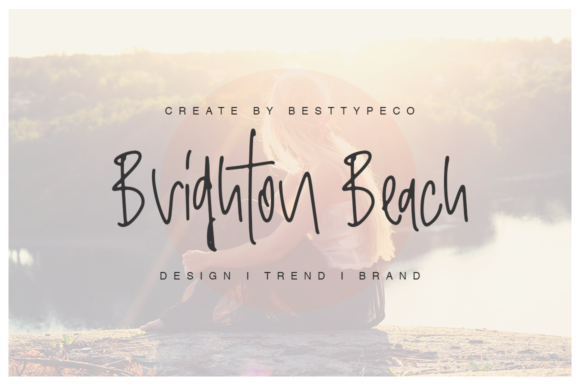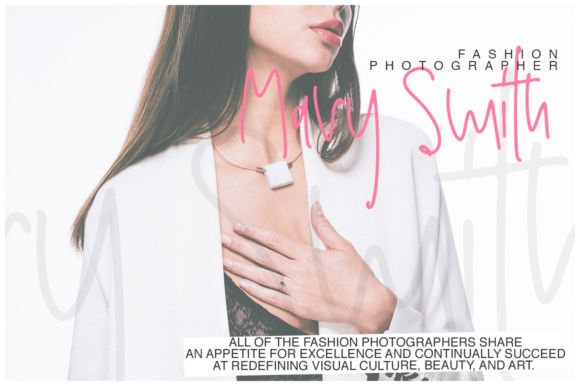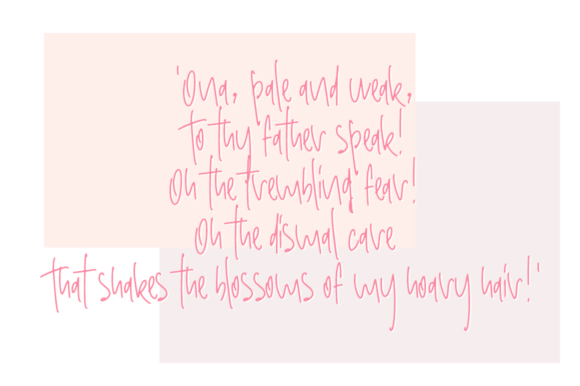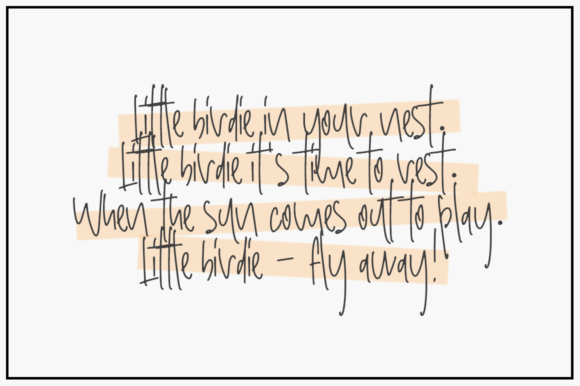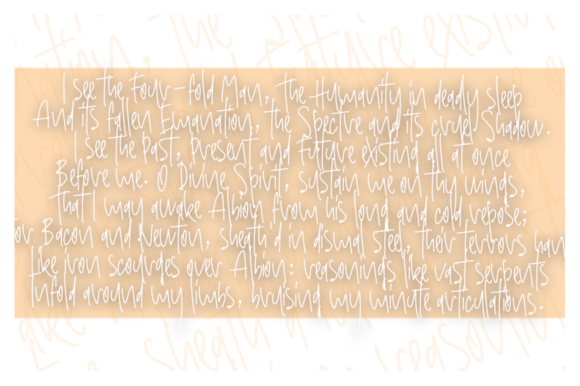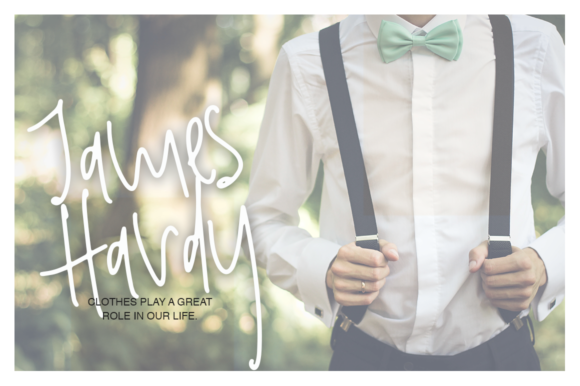
HomeScript FontsBrighton Beach Font Script Fonts Brighton Beach Font FacebookXPinterestWhatsApp Brighton Beach Font Poster 2 Brighton Beach Font Poster 3 Brighton Beach Font Poster 4 Brighton Beach Font Poster 5 Brighton Beach Font Poster 6 About Brighton Beach Font Brighton Beach is a casual and easy script that will add a feel-good theme to your next design project. DOWNLOAD NOW People also explored Takegon Font Bananas Font Mistletoes Font Love Teacher Font Free Kick Font Thenicle Outline Semi-Bold Font Rum Baba Font Sheep Farm Font Celeste Font 444 0 TagsBrighton Beach Font Previous articleCeremony FontNext articleBlitz Font LEAVE A REPLY Cancel reply Comment: Please enter your comment! Name:* Please enter your name here Email:* You have entered an incorrect email address! Please enter your email address here Website: Save my name, email, and website in this browser for the next time I comment. Personal Use Free Jelly Fish Personal Use Free Read more about this font Euphorigenic Personal Use Free Read more about this font Black Friday Personal Use Free Read more about this font Ashay Personal Use Free Read more about this font BLOG Best Fonts for T-Shirt Design – Top 2025 Picks In 2025, t-shirt design has become more than just fashion—it's a form of self-expression. Whether you're... Free Fonts Risk: Why Free Fonts Can Be Dangerous for Designers How to Cut Any Font on Cricut: Convert a Font to SVG (Free) Exploring Font Trends